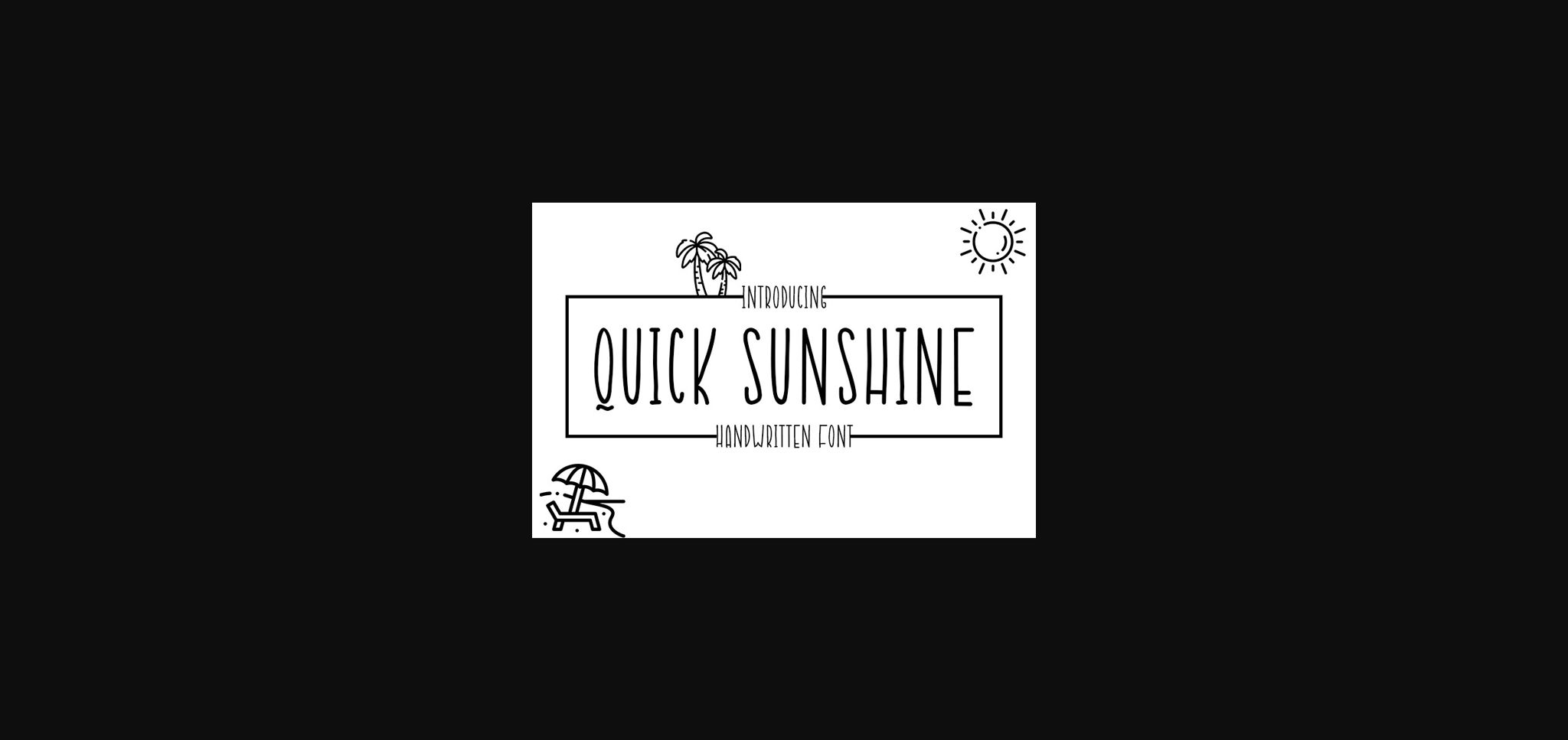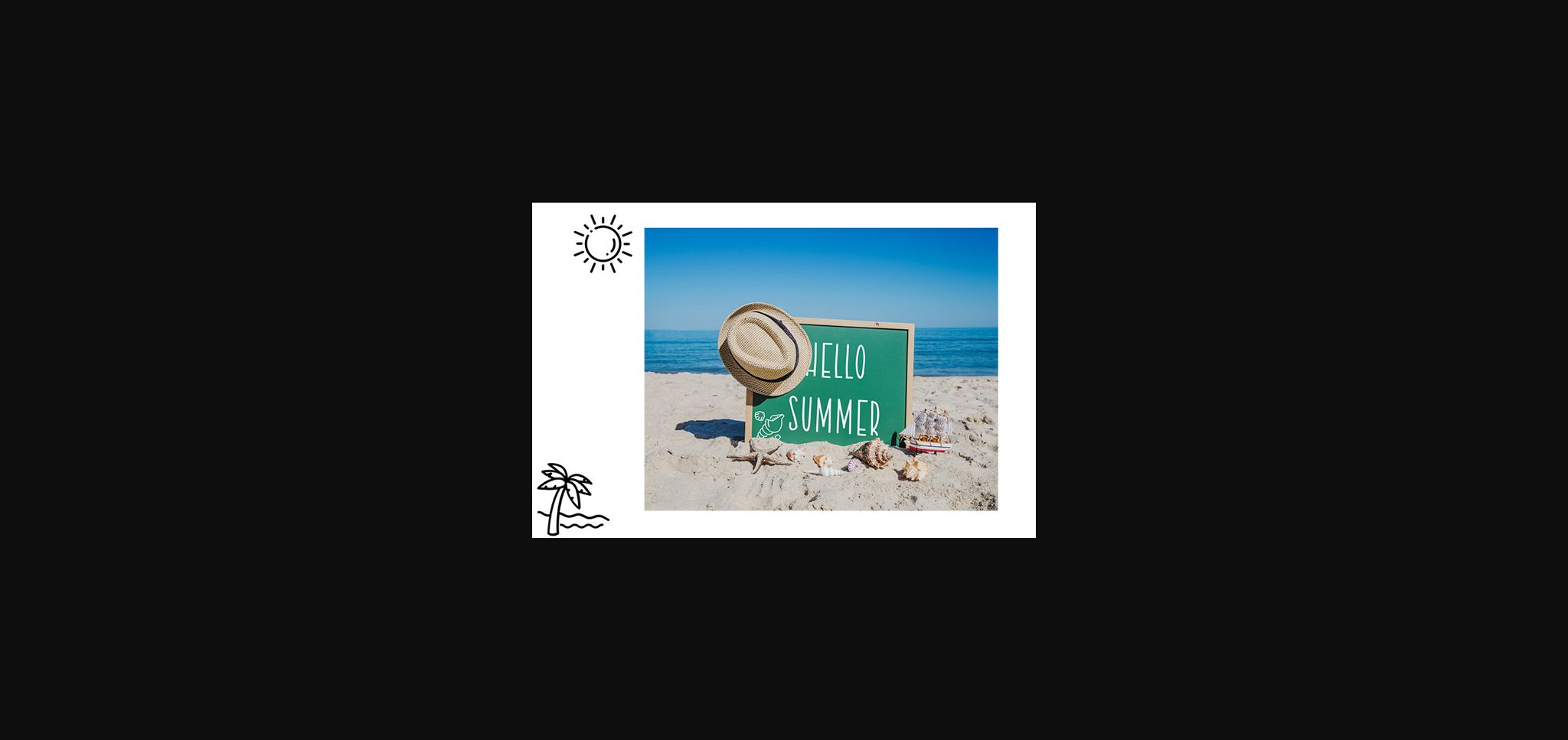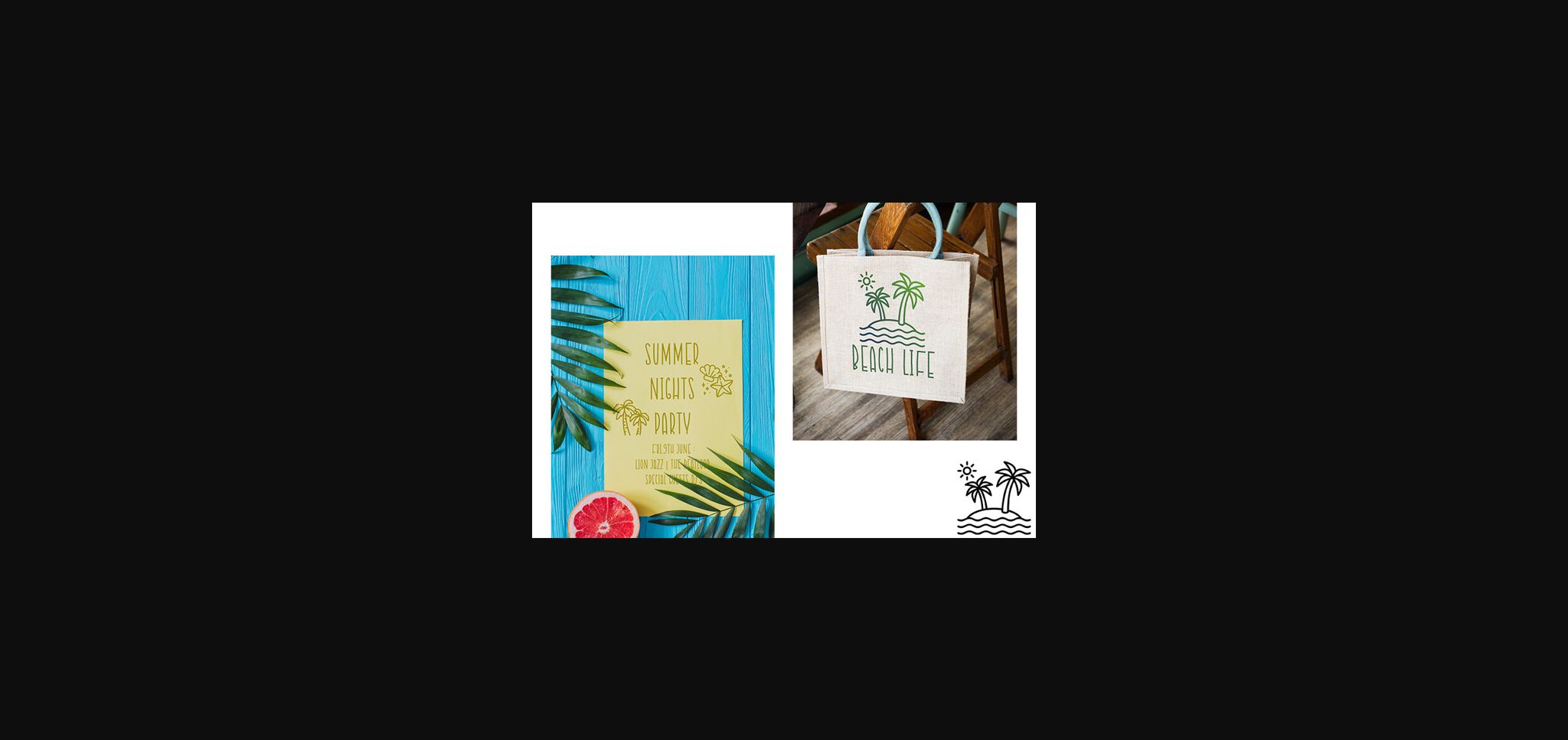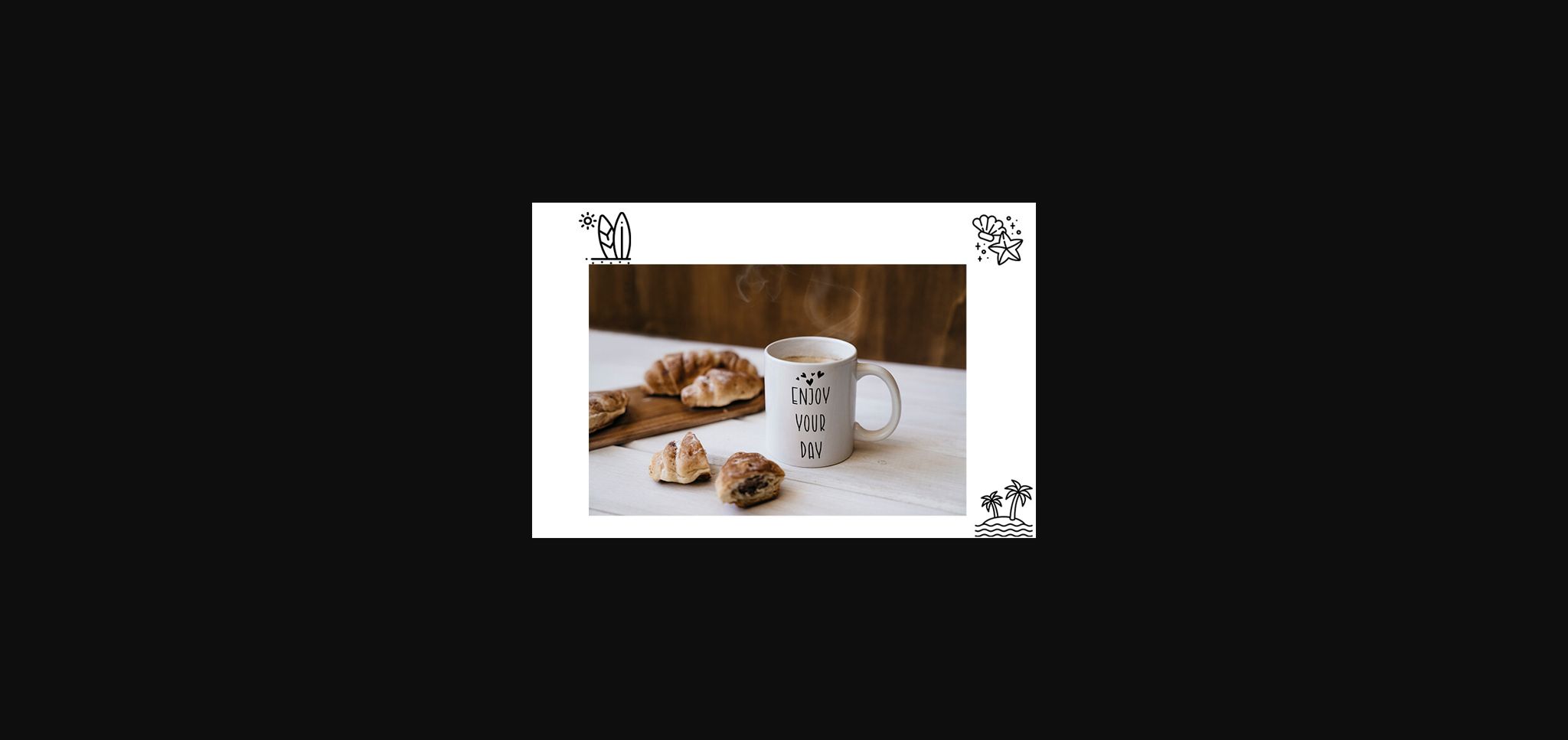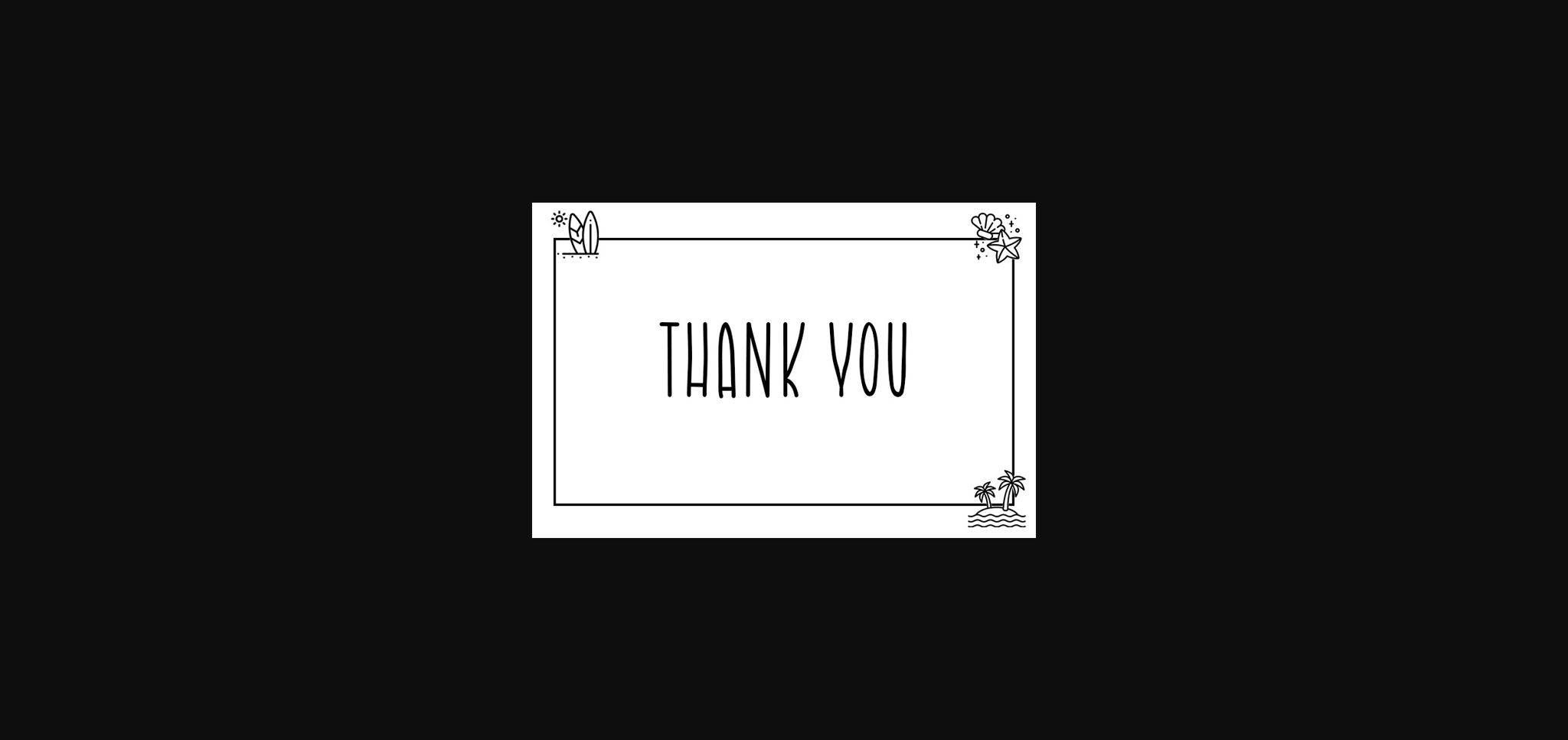
Quick Sunshine Font
About Quick Sunshine Font
Quick Sunshine is a sweet and friendly handwritten font. Its natural and unique style makes it incredibly fitting to a large pool of designs. The only limit is your imagination!